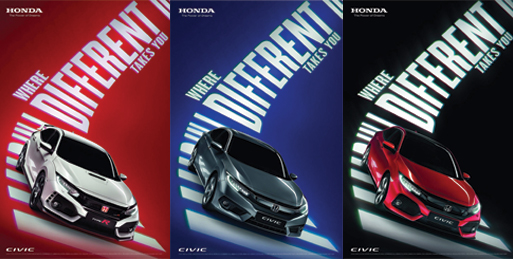
Dynamic typography roams wild in Honda's Civic latest W+K London campaign
"We worked with Honda to encourage drivers to take a break from the norm in ‘Where Different Takes You’, a new pan-European campaign promoting the carmaker’s distinctive, sporty Civic" note Wieden+Kennedy London of their latest ultra typographic campaign for the Japanese brand. In the UK, one of the first markets to go live, the campaign is led by a 60” film, which sees dynamic typography create an unexpected path – pushing the boundaries of a Civic driver. The film conveys the distinctive spirit of the Civic and the brand’s values, while showcasing every sleek and sporty angle of the vehicle.
Set to a slick voiceover from London rapper and artist Kojey Radical, the spot is directed by Mike Skrgatic and James Allen, who previously collaborated with Honda UK and W+K London on the award-winning Dream Makers film.
'Where Different Takes You’ debuted in the UK on October 6 in cinemas and October 7 on TV and is supported by a national print and out-of-home campaign.